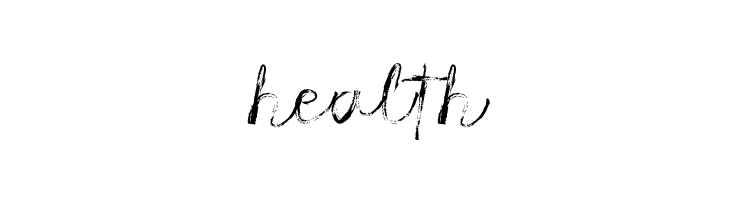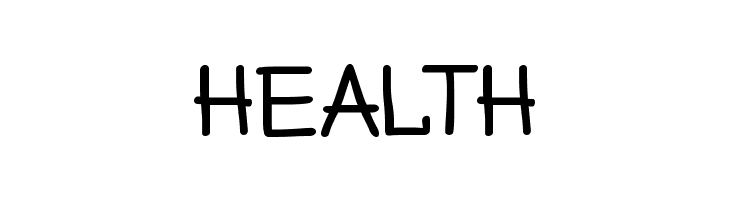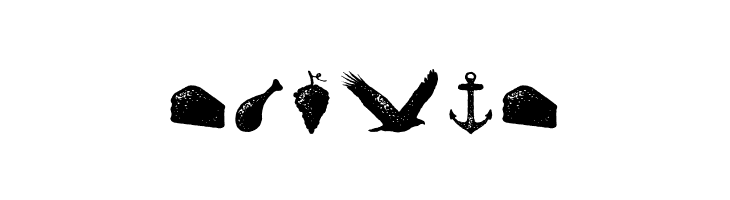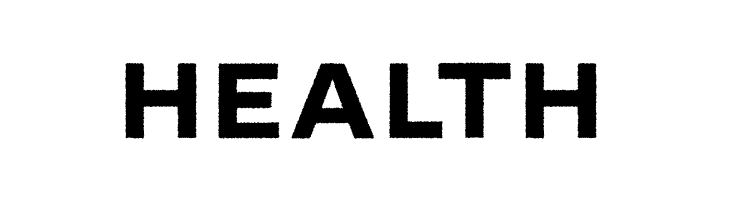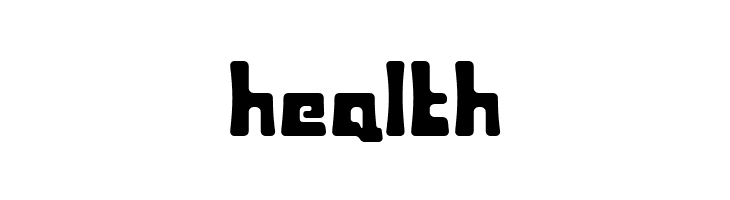
A bold, playful font with a handcrafted, vintage feel.
A bold, distressed font with a vintage, textured appearance.
A bold, textured typewriter-style font with a vintage, mechanical feel.
A vintage, typewriter-style font with a distressed, handcrafted appearance.
A distressed serif font with a vintage, textured style.
A bold, rounded font with a distressed, handcrafted look.
A bold, textured font with a distressed, grunge aesthetic.
A rough, hand-drawn font with a vintage, distressed look.
A bold, textured font with a hand-drawn, crosshatched style.
A hand-drawn, sketch-like font with uneven weights and rough edges.
A bold, artistic font with high contrast and a whimsical, handcrafted style.
A bold, textured font with a vintage, playful style.
A handcrafted, woodblock-inspired font with intricate line work and a rustic aesthetic.
A vintage-inspired font with a handcrafted, whimsical style.
A hand-drawn, vintage-style font with sketch-like, decorative elements.
A bold, textured font with a handcrafted, vintage feel.
A sketchy, hand-drawn font with textured, overlapping strokes.
A bold, brush-stroke style font with a rugged, handcrafted appearance.
A playful, stitched outline font with a handcrafted, whimsical style.
A bold, distressed font with a textured, vintage appearance.
A bold, vintage serif font with a distressed, handcrafted look.
A hand-drawn, textured font with a dynamic and artistic style.
A rugged, hand-drawn font with textured strokes and an organic feel.
A bold, distressed typewriter-style font with a vintage, handcrafted look.
A bold, distressed serif font with a vintage, textured appearance.
A bold, textured font with a denim-like, handcrafted appearance.
A bold, textured font with a vintage, handcrafted feel.